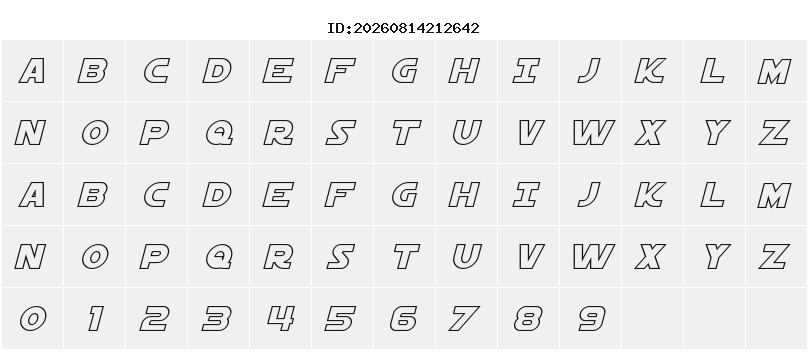
Starkiller Outline Preview
• Font Name: Starkiller Outline
• Font ID: Starkiller Outline Italic:Version 1.00
• Full Font Name: Starkiller Outline Italic
• Version: Version 1.00 August 27, 2013, initial release
• PostScript Name: StarkillerOutline-Italic
• Character Count: 242
• Designer: Neale Davidson
About Starkiller Outline.ttf
Starkiller Outline.ttf is a modern, elegant sans-serif font designed for ultimate readability and visual harmony. Perfect for branding, headlines, web design, and print materials.